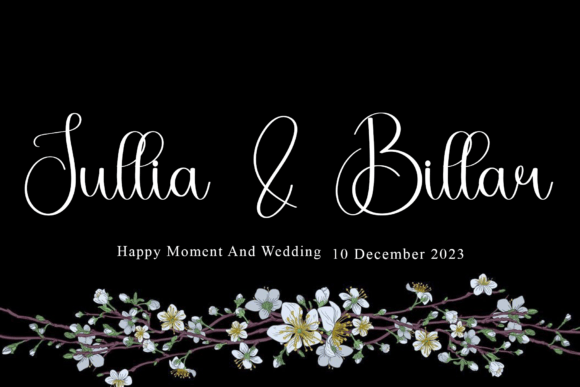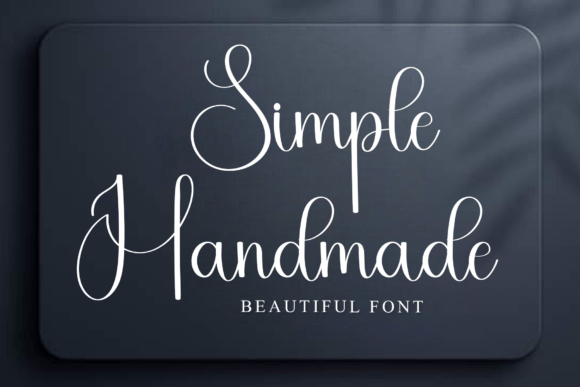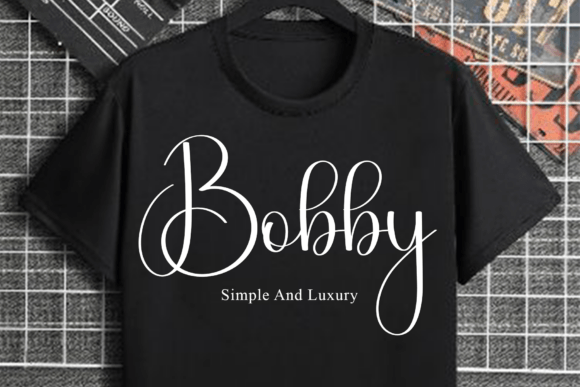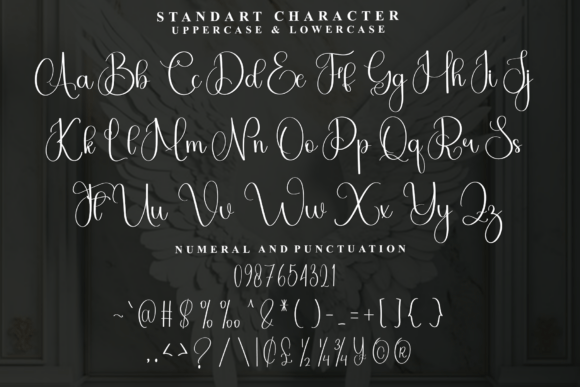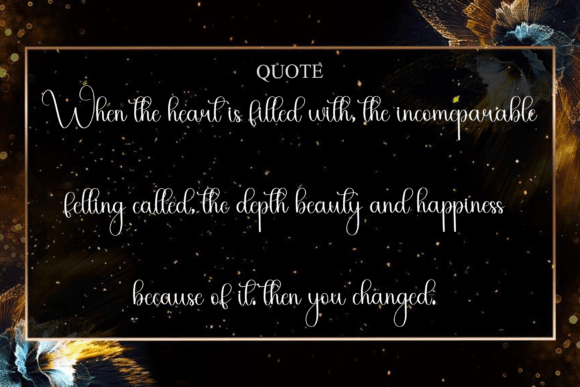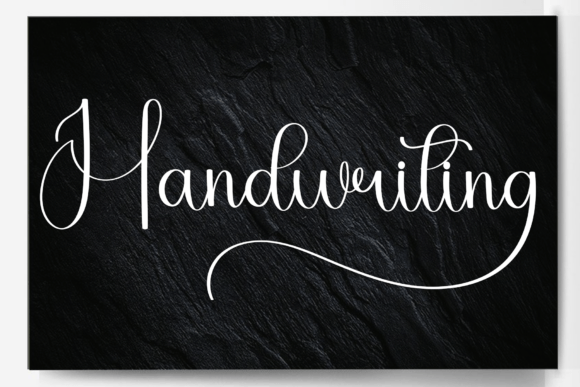
Astronomy Font: A Casual and Creative Typeface for Your Designs
Are you looking for a font that can add a touch of warmth and friendliness to your designs? Look no further than the Astronomy Font. This casual and creative typeface is perfect for personal projects, invitations, social media graphics, and more. Its round, playful strokes create a relaxed and approachable feel that’s sure to engage your audience.
The Characteristics of Astronomy Font
The Astronomy Font is a hand-drawn typeface that boasts a charming and unique aesthetic. Its playful strokes and rounded edges give it a friendly and approachable feel, making it perfect for designs that require a personal touch. The font is equipped with standard PUA Encoded glyphs, which ensure that it works seamlessly with various application engines, including Adobe Photoshop, Corel, Adobe Illustrator, Canva, and many others.
Why Choose Astronomy Font?
So, why should you choose the Astronomy Font for your designs? Here are just a few reasons:
- Warm and Friendly Feel: The Astronomy Font exudes warmth and friendliness, making it perfect for designs that require a personal touch.
- Playful and Creative: The font’s playful strokes and rounded edges give it a creative and fun feel that’s sure to engage your audience.
- Versatile: The Astronomy Font is perfect for a wide range of designs, including personal projects, invitations, social media graphics, and more.
How to Use Astronomy Font in Your Designs
Using the Astronomy Font in your designs is easy. Here are a few tips to get you started:
- Pair it with Other Fonts: The Astronomy Font works well when paired with other fonts. Try pairing it with a bold font for headings and a clean font for body text.
- Use it for Headings and Titles: The Astronomy Font is perfect for headings and titles. Its playful strokes and rounded edges make it stand out and grab attention.
- Add a Personal Touch: The Astronomy Font is perfect for adding a personal touch to your designs. Use it for invitations, social media graphics, and other designs that require a friendly and approachable feel.
The Benefits of Using Astronomy Font
Using the Astronomy Font in your designs comes with a range of benefits. Here are just a few:
- Unique and Creative: The Astronomy Font is a unique and creative typeface that will set your designs apart from the rest.
- Versatile: The Astronomy Font is perfect for a wide range of designs, making it a versatile addition to your font collection.
Who Can Benefit from Using Astronomy Font?
The Astronomy Font is perfect for a wide range of designers and crafters, including:
- Graphic Designers: The Astronomy Font is perfect for graphic designers who want to add a personal touch to their designs.
- Social Media Managers: The font is perfect for social media managers who want to create engaging and friendly social media graphics.
- Crafters: The Astronomy Font is perfect for crafters who want to add a unique and creative touch to their projects.
The Astronomy Font is a casual and creative typeface that exudes warmth and friendliness. Its round, playful strokes create a relaxed and approachable feel that’s perfect for personal projects, invitations, social media graphics, and more. With its standard PUA Encoded glyphs and versatility, the Astronomy Font is a great addition to any designer’s font collection. So why not give it a try and see how it can elevate your designs?